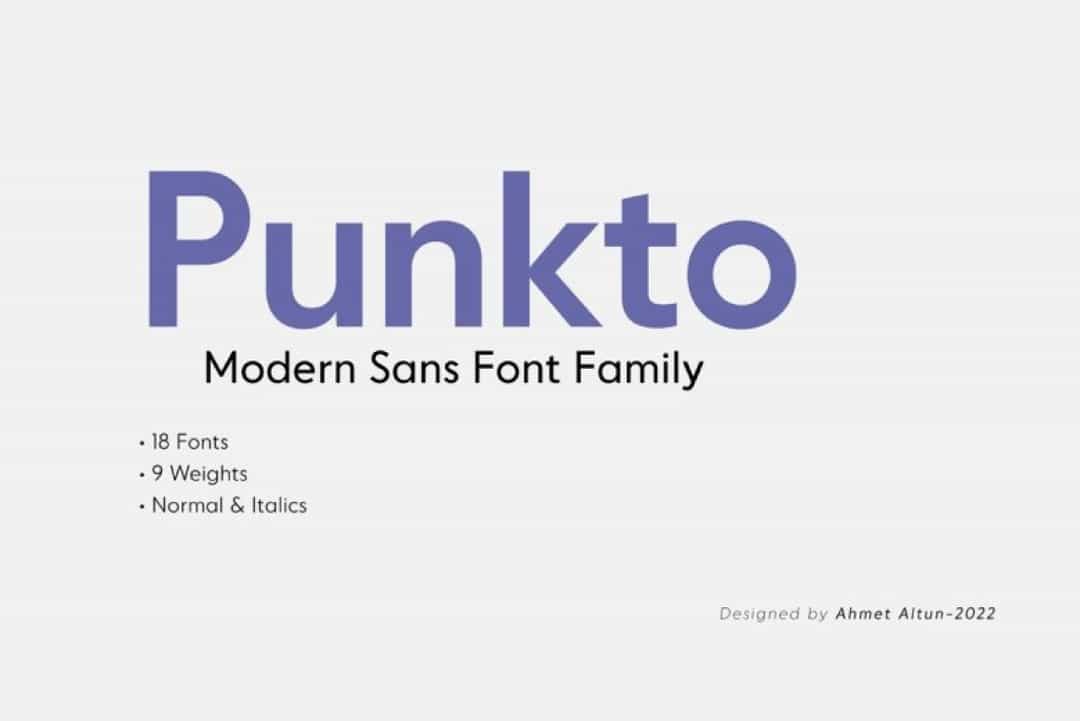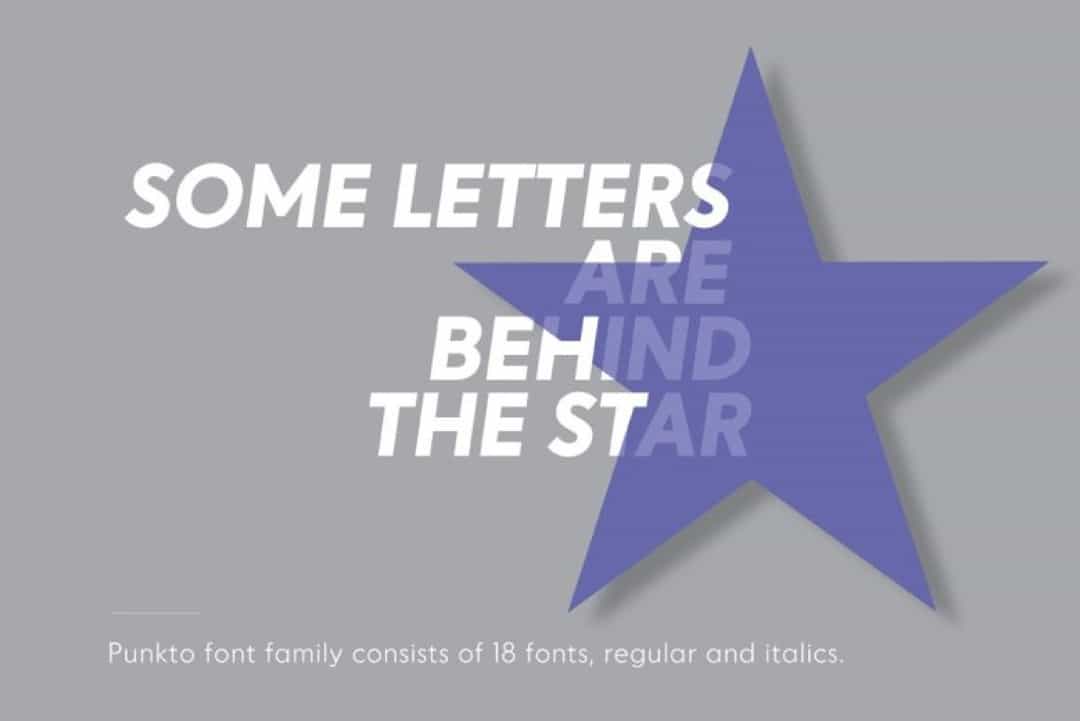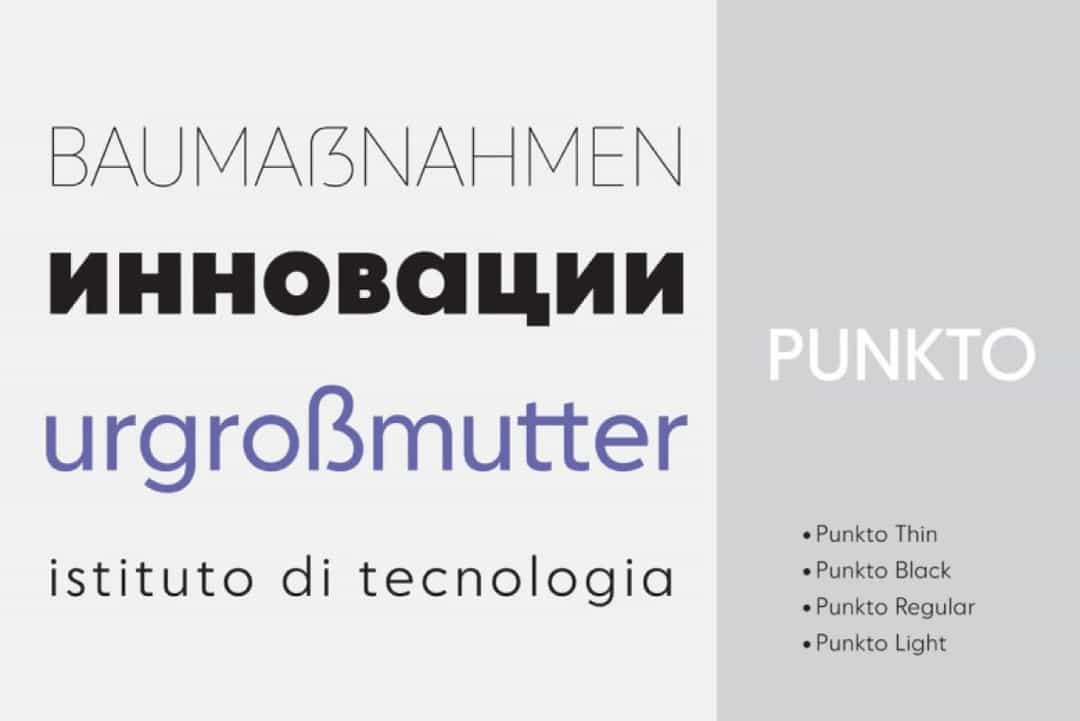
Pointo Sans Serif Font Family comes in nine weights of Normal and Italic to create stunning web designs such as banners, logos or body copy for presentations as well as T-shirts, posters, magazines or Affidavits.